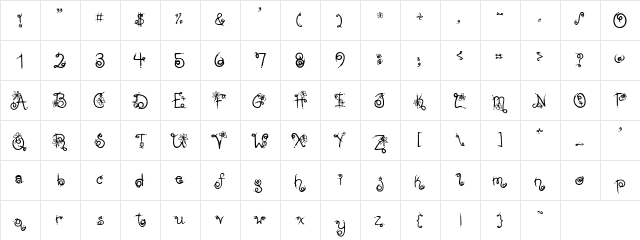
PC Bug Tracks Regular
Design Context for PC Bug Tracks Typeface
PC Bug Tracks is a composed and adaptable typeface that performs quietly and consistently across a wide range of design contexts.